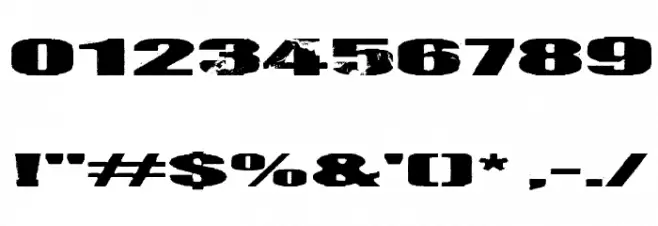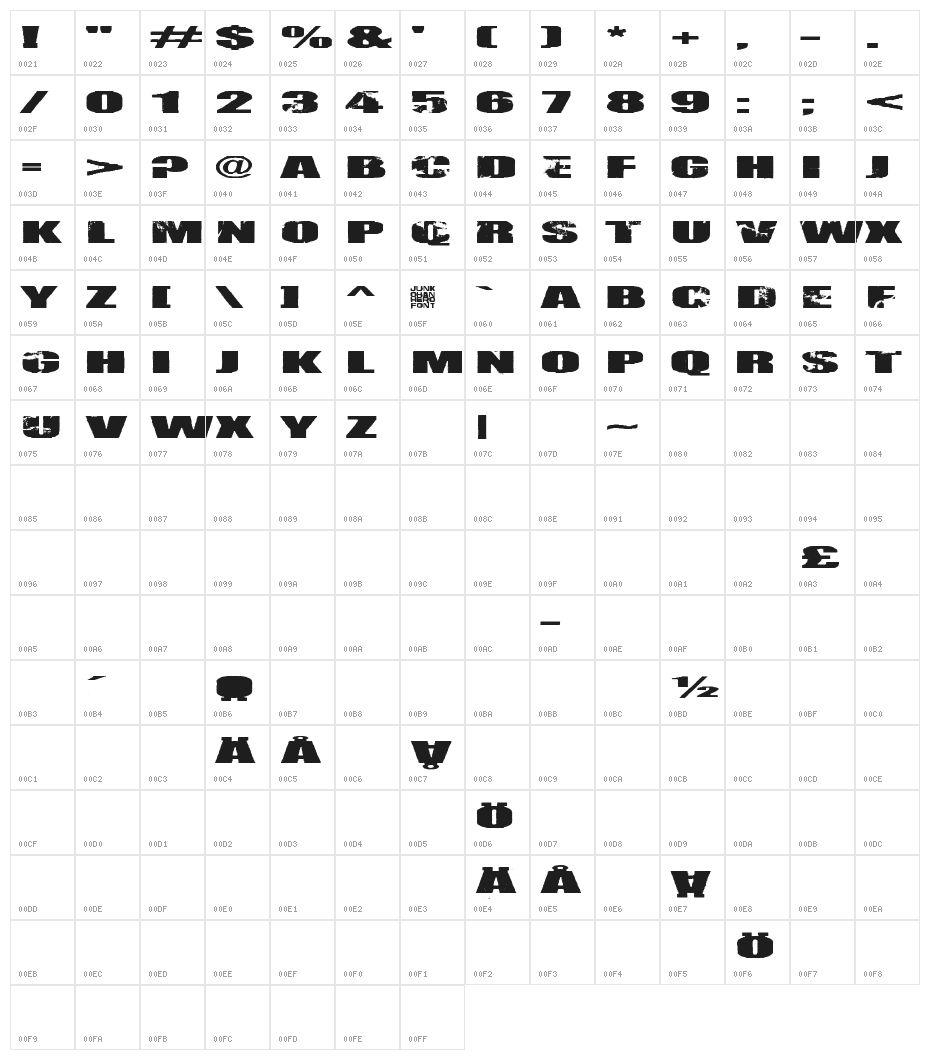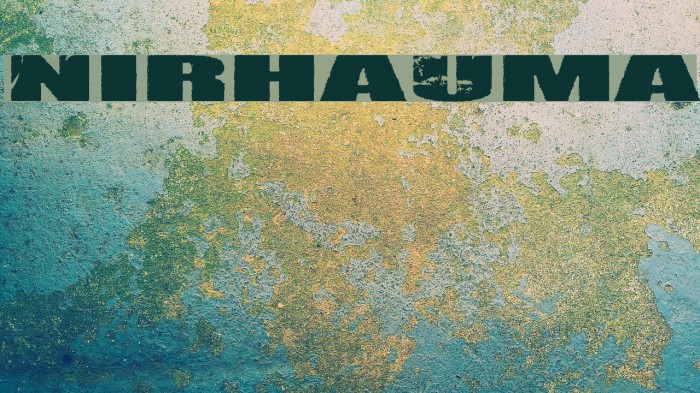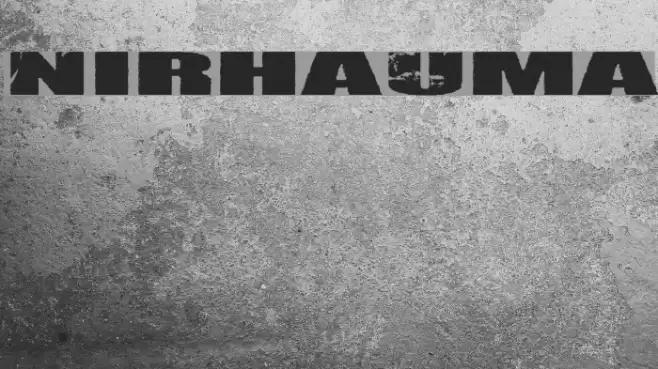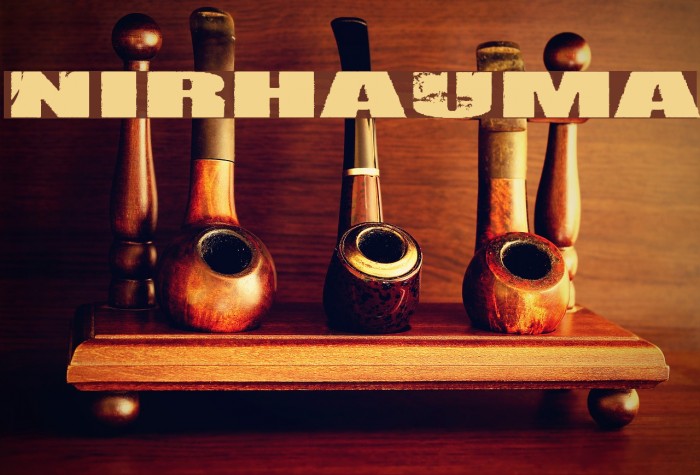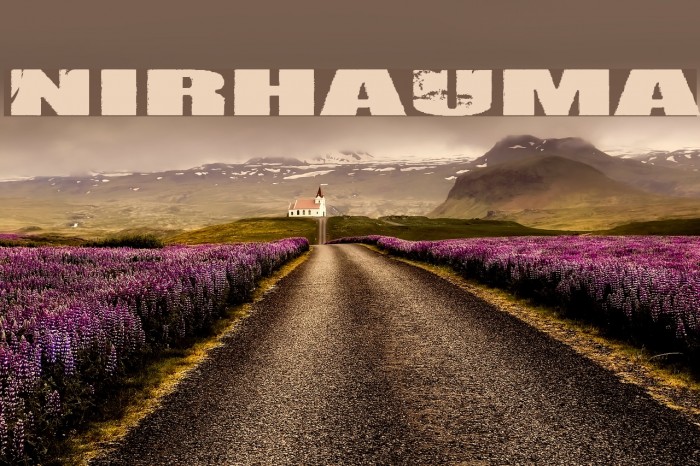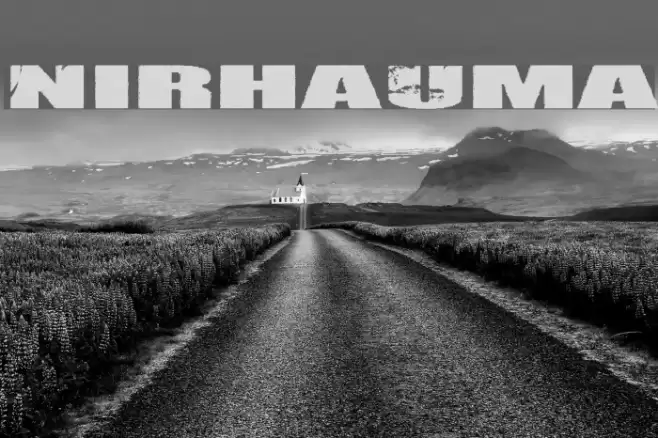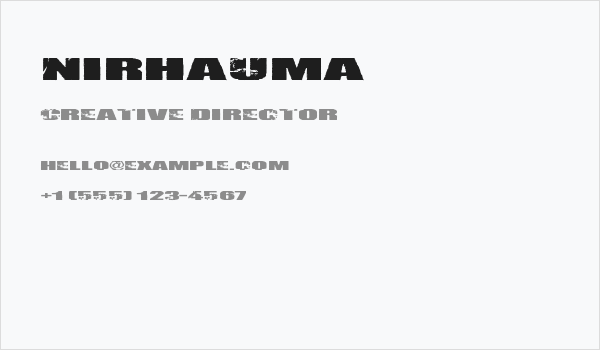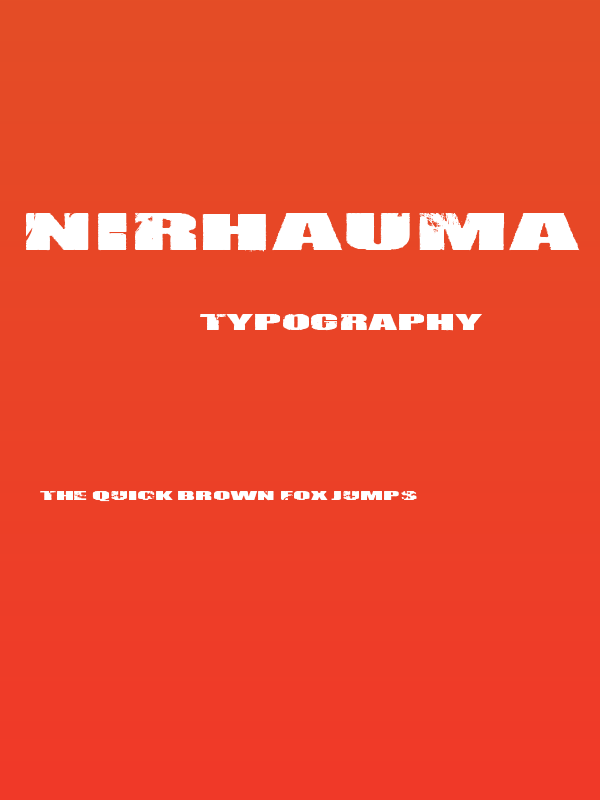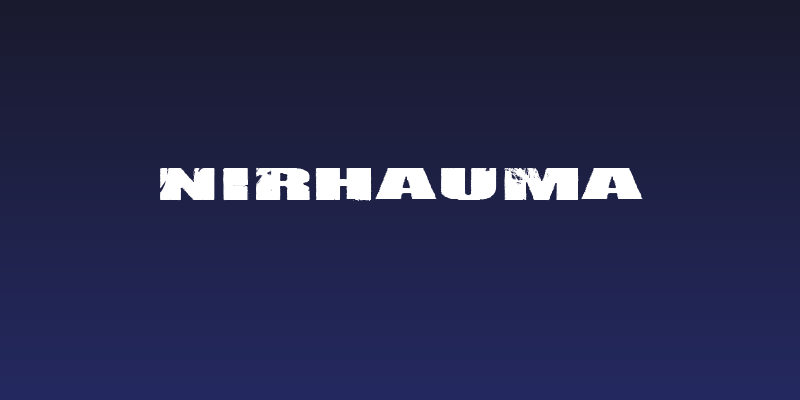
Nirhauma Font
Nirhauma Description
This font features a bold, distressed style with a grunge texture that gives it a rugged, worn appearance. The characters are uppercase and have a strong, impactful presence, making them suitable for attention-grabbing designs. The letters are slightly irregular, adding to the distressed effect, and the texture varies across different characters, enhancing the overall dynamic look. The numbers and special characters follow the same style, ensuring consistency throughout the font. This font is ideal for projects that require a bold statement with a touch of edginess.
| Overall Style | Grunge, Edgy, Bold |
| Proposed Projects | Ideal for posters, album covers, urban-themed designs, and any project needing a bold, edgy look. |